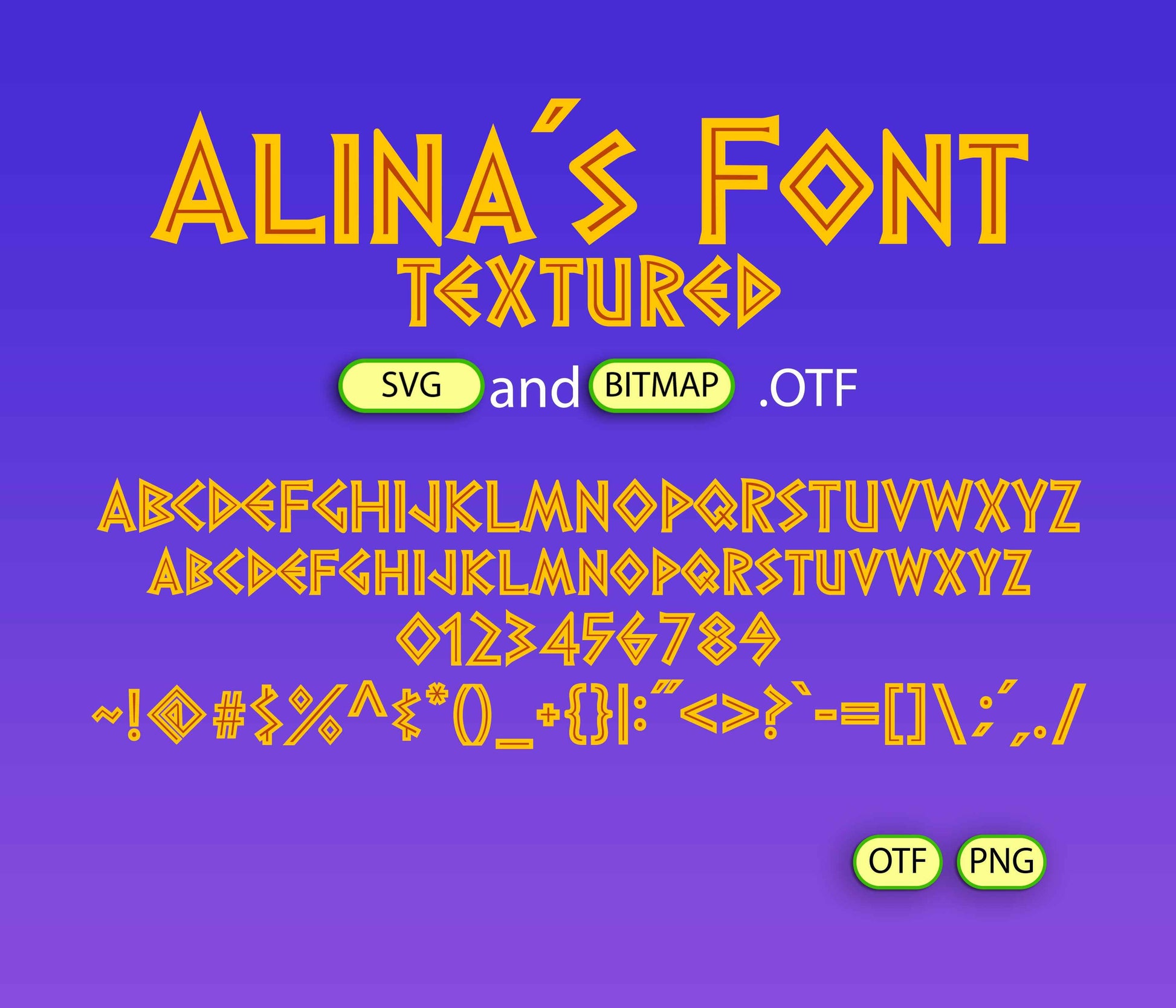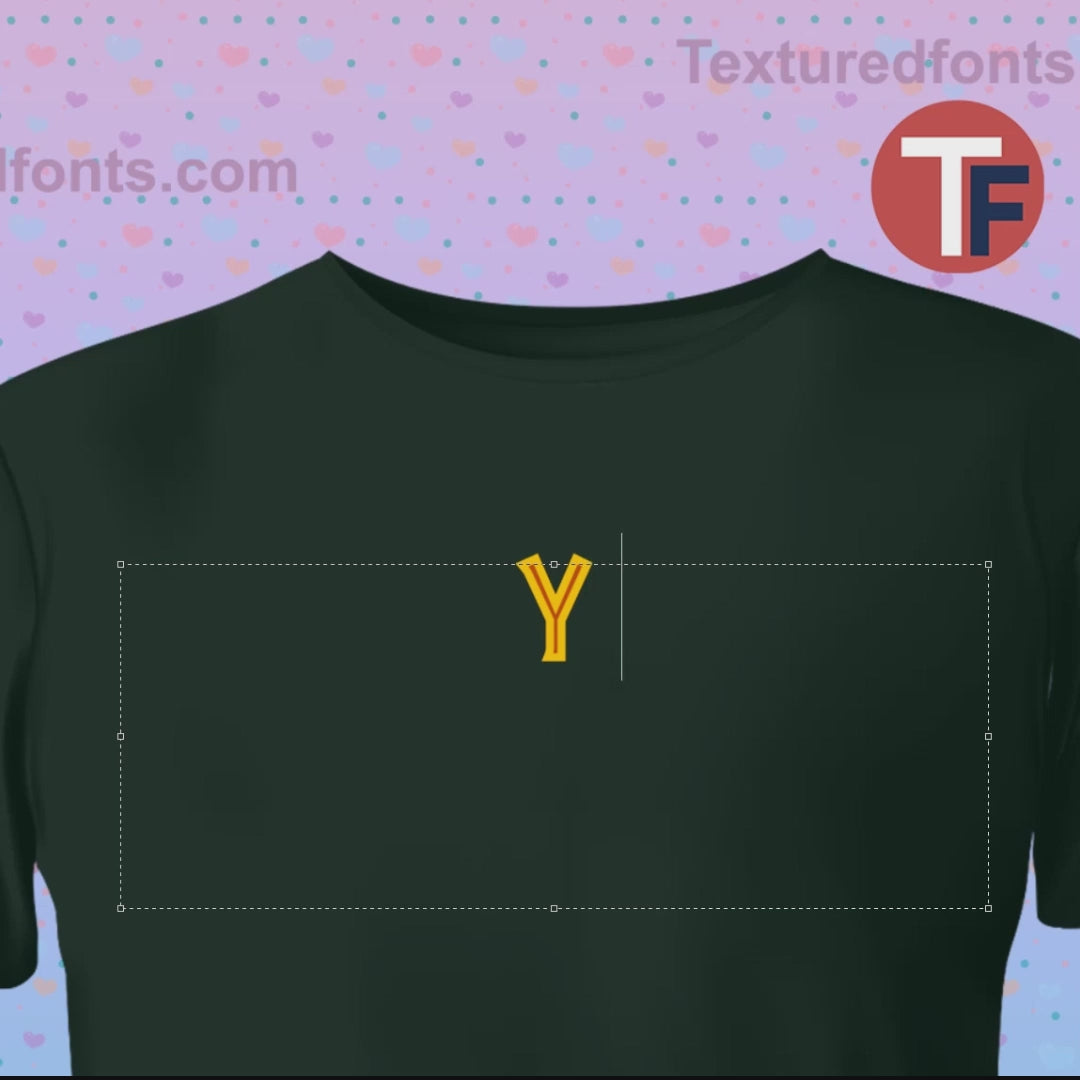
Heroic Demigod Font Textured
Channel Mythical Strength with the Heroic Demigod-Inspired Font
Embrace the epic and heroic spirit of ancient mythology with our Heroic Demigod-inspired font. Designed to capture the grandeur and boldness of the legendary figure, this font is perfect for projects requiring timeless strength and classical elegance. Whether creating promotional materials for historical content, themed event invitations, or majestic digital content, our Heroic Demigod font ensures your designs stand out with the power and heroism of a true demigod.
Our Heroic Demigod font features robust, commanding characters with a stylized flair hinting at ancient Greek artistry. The sharp, clean lines and monumental weight evoke iconic Greek columns and architecture. This font includes a full suite of characters—uppercase, lowercase, numbers, and special symbols—suitable for a wide range of applications:
Our Heroic Demigod-inspired font pays homage to the might and bravery of the ancient hero, infusing your projects with classical beauty and enduring strength. Whether engaging audiences with historical narratives, designing products that reflect the majesty of the past, or adding a touch of heroism to your creative endeavors, this font lets you communicate with the same impact and awe that the legendary hero embodies. Ready to let your designs go the distance? Our Heroic Demigod font is here to lead the way.